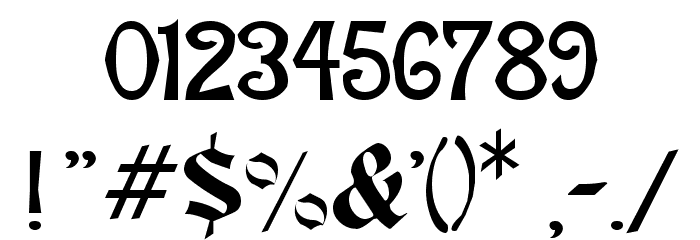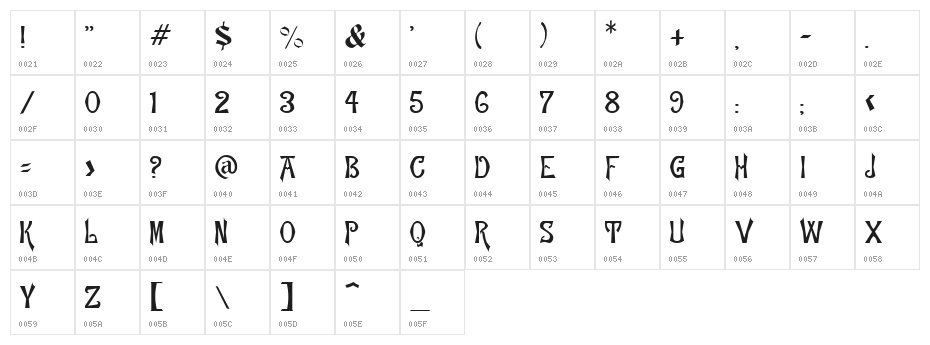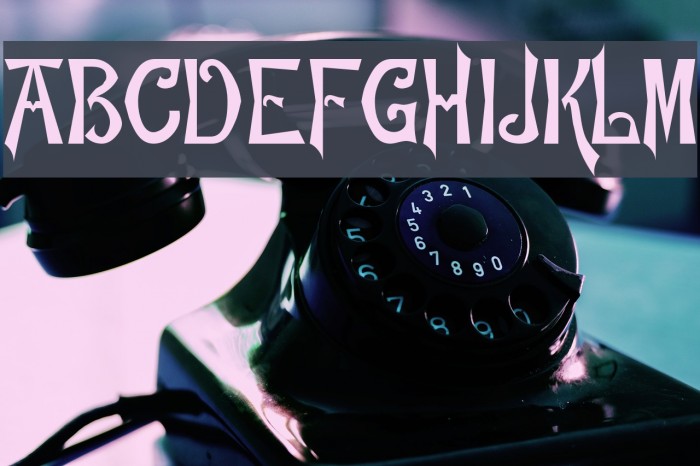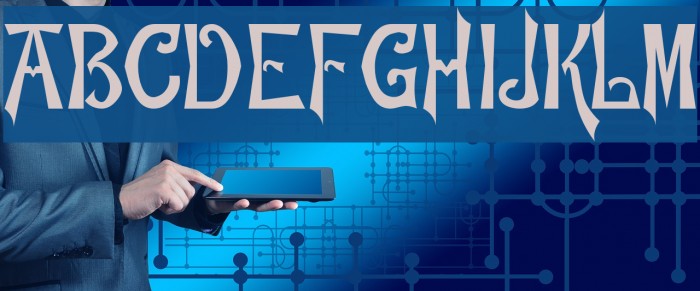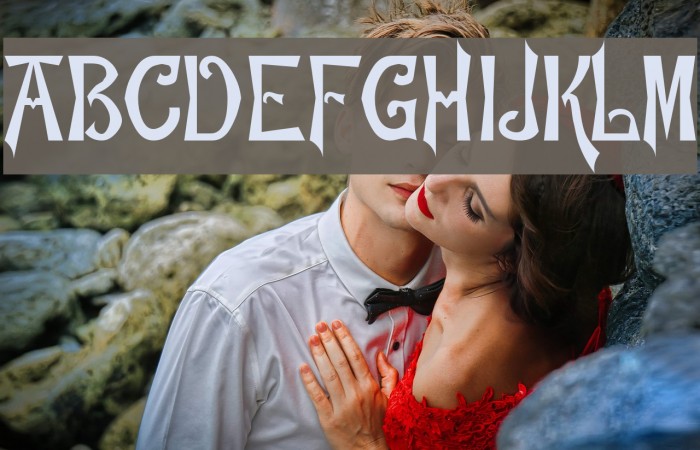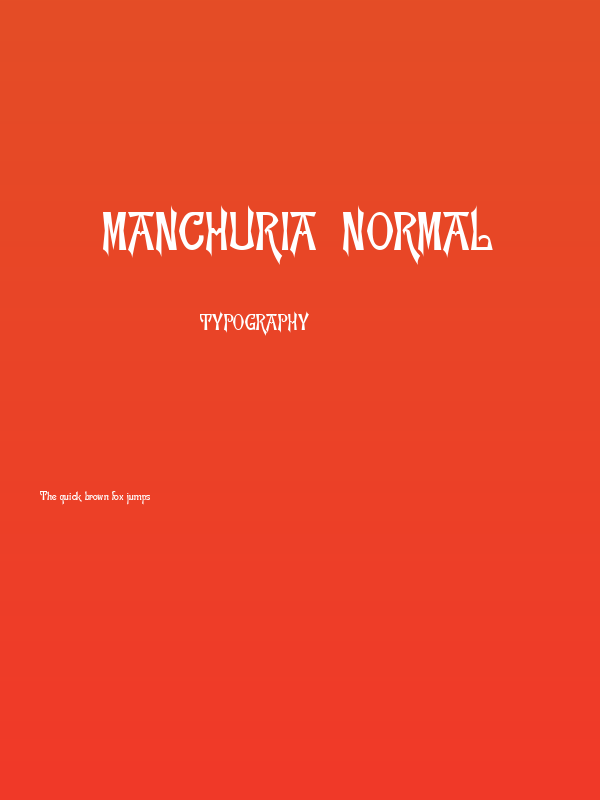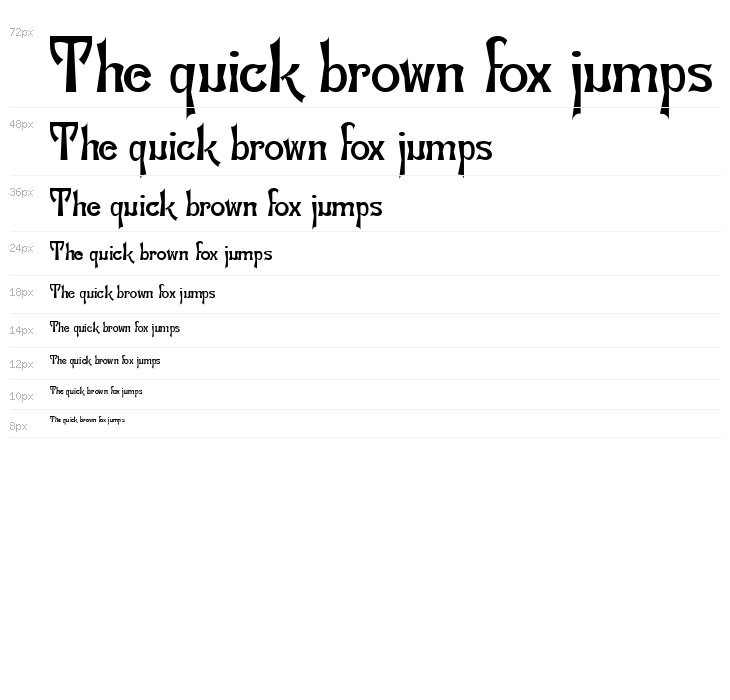
Manchuria Normal Font
Manchuria Normal Description
This font features a bold and striking design with sharp, angular edges and a distinct Gothic influence. The uppercase letters are particularly dramatic, with exaggerated serifs and pointed terminals that give them a fierce and commanding presence. The lowercase letters maintain this bold style but with slightly softer curves, providing a balanced contrast. The numerals are consistent with the overall theme, offering a unique and eye-catching appearance. Special characters are designed with the same attention to detail, ensuring a cohesive look across all glyphs. This font's unique style makes it ideal for projects that require a strong visual impact.